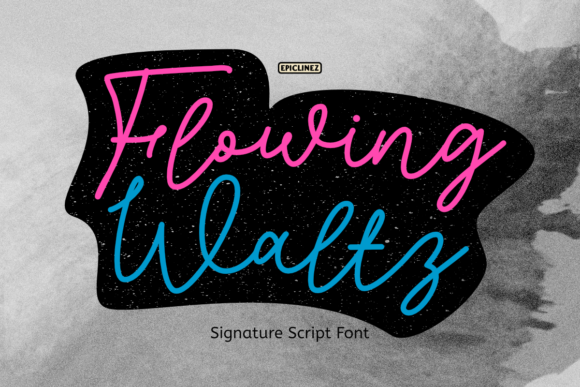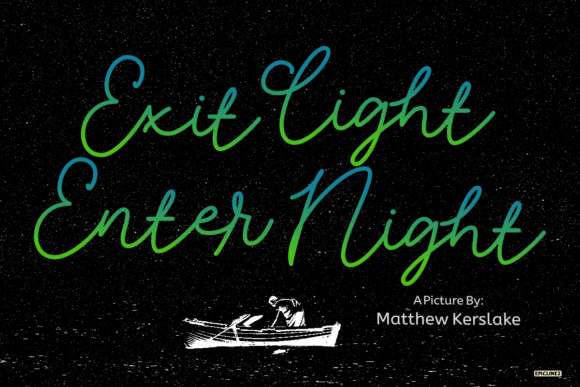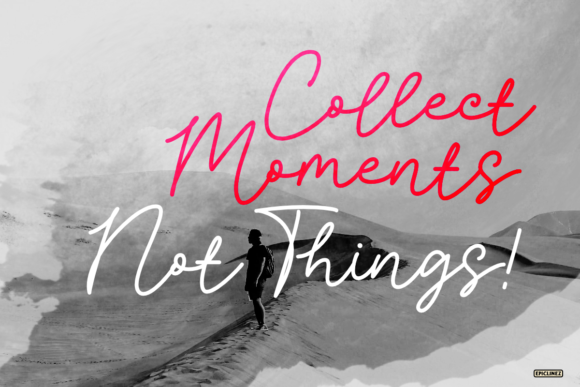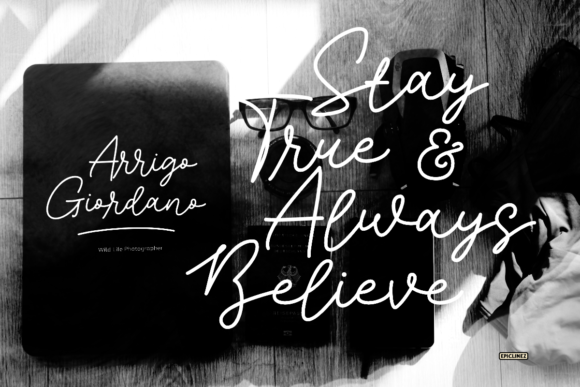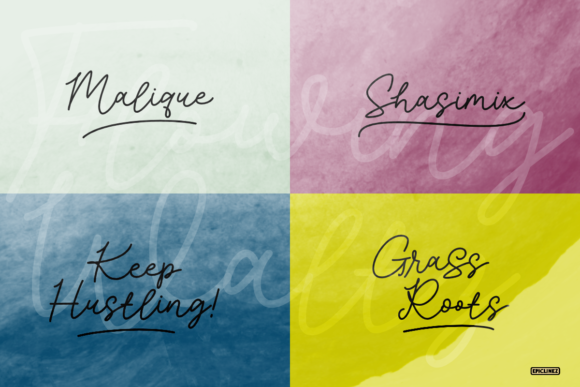
The Magic of Typography: Unleashing Your Creative Flow
Have you ever found yourself lost in a creative moment, where time stands still and your imagination runs wild? Maybe it was a late-night brainstorming session, a spontaneous art project, or a quiet moment of introspection. Whatever the scenario, the spark of creativity is what sets us apart as artists and designers. It’s a feeling that’s hard to put into words, but it’s the driving force behind some of the most breathtaking designs we’ve ever seen.
For designers seeking to capture that same essence, the right font can be a game-changer. Enter the Flowing Waltz Font, a stylish signature font that embodies the natural flow of creativity. This beautiful font is perfect for adding a touch of sophistication to your branding, designs, and more. Whether you’re a seasoned pro or just starting out, the Flowing Waltz Font is a valuable addition to your design toolkit.
Key Features of Flowing Waltz Font
- Font Family: Flowing Waltz, Flowing Waltz Script, Flowing Waltz Initials
- Unique Characteristics: Elegant, flowing script design; ideal for wedding invitations, certificates, and other formal documents
- Character Count: Over 1000 glyphs, including Latin, Cyrillic, and Greek alphabets
Flowing Waltz Font Review
When I first laid eyes on the Flowing Waltz Font, I was immediately drawn to its whimsical, hand-drawn feel. ✨ The flowing curves and gentle flourishes evoke a sense of romance and elegance, making it perfect for wedding invitations, luxury brands, or anything that needs a touch of sophistication.
- ✨ Unique Character: The Flowing Waltz Font’s distinctive style sets it apart from more common fonts, making it a great choice for designers looking to add some visual interest to their projects.
- ✨ High-Quality Glyphs: The font’s glyphs are well-crafted and detailed, ensuring that they look great at a variety of sizes and resolutions.
- ✨ Extensive Character Set: The font includes a wide range of characters, including Latin, Cyrillic, and Greek alphabets, as well as punctuation and symbols.
However, I do have a few concerns. ⚠️ The font’s complexity can make it difficult to read at very small sizes, and some of the characters may be misinterpreted in certain contexts. Additionally, the font’s unique style can be overwhelming if used excessively.
Overall, I think the Flowing Waltz Font is a beautiful and versatile choice for designers who want to add some flair to their projects. While it may have some limitations, its unique character and high-quality glyphs make it a worthwhile investment for anyone looking to elevate their design game.
Some tips for getting the most out of Flowing Waltz Font include:
– Use it for titles, headings, and other emphasis text.
– Pair it with a simple background to let the font shine.
– Experiment with different font sizes and colors to create a unique look.
Common use cases for Flowing Waltz Font include:
– Wedding invitations and stationery.
– Luxury brand packaging and advertising.
– High-end restaurant menus and signage.
Alternatives to Flowing Waltz Font
Pacifico is a beautiful, elegant script font that is perfect for adding a touch of sophistication to your designs. It’s ideal for use in wedding invitations, greeting cards, and other creative projects where a flowing, handwritten feel is desired.
Compared to Flowing Waltz Font, Pacifico has a more refined and polished look, with a focus on clean lines and precise letterforms. While Flowing Waltz Font has a more whimsical and playful feel, Pacifico is better suited for projects where a more formal, high-end look is desired.
Great Vibes is a modern script font that is perfect for use in a wide range of projects, from logos and branding to packaging and advertising. It’s ideal for designers who want to add a touch of elegance and sophistication to their designs without sacrificing readability.